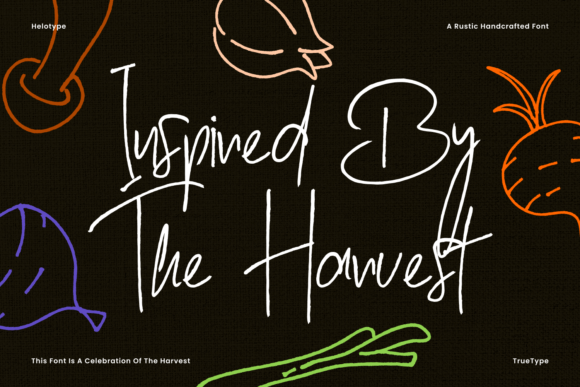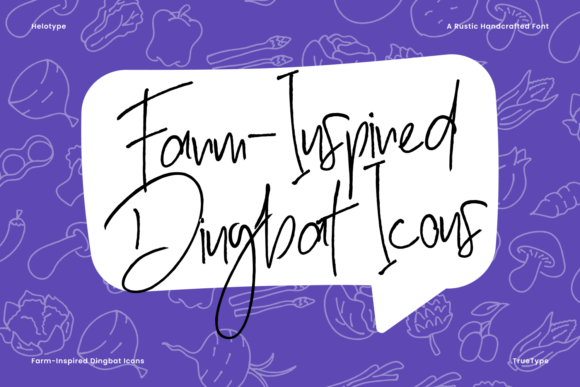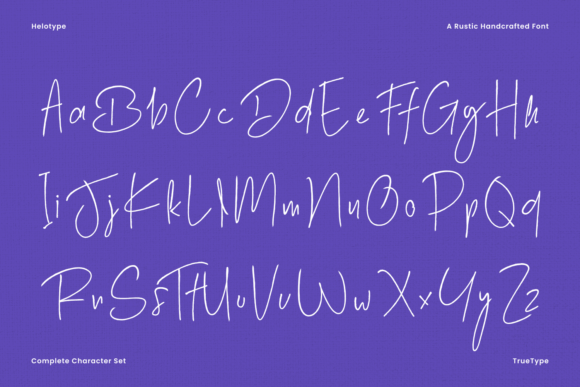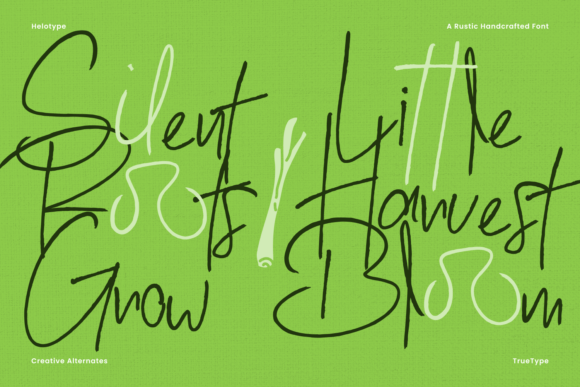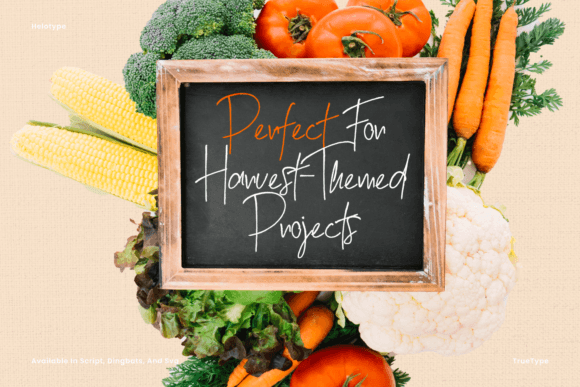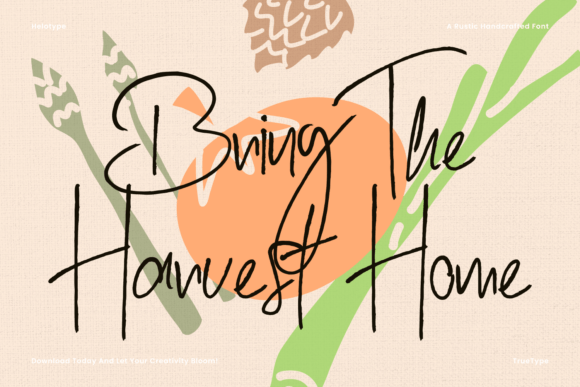
Introduction to Rustic Harvest Font
Immerse your artwork in a countryside charm with the Rustic Harvest Font Family Bundle.
Adorned with a captivating handwritten font, this stylish pack includes a range of rustic dingbats along with a bonus SVG icon This complete kit equips you with all the elements to breathe life into your designs, offering that irresistible appeal of fall allure.
Key Features of Rustic Harvest Font